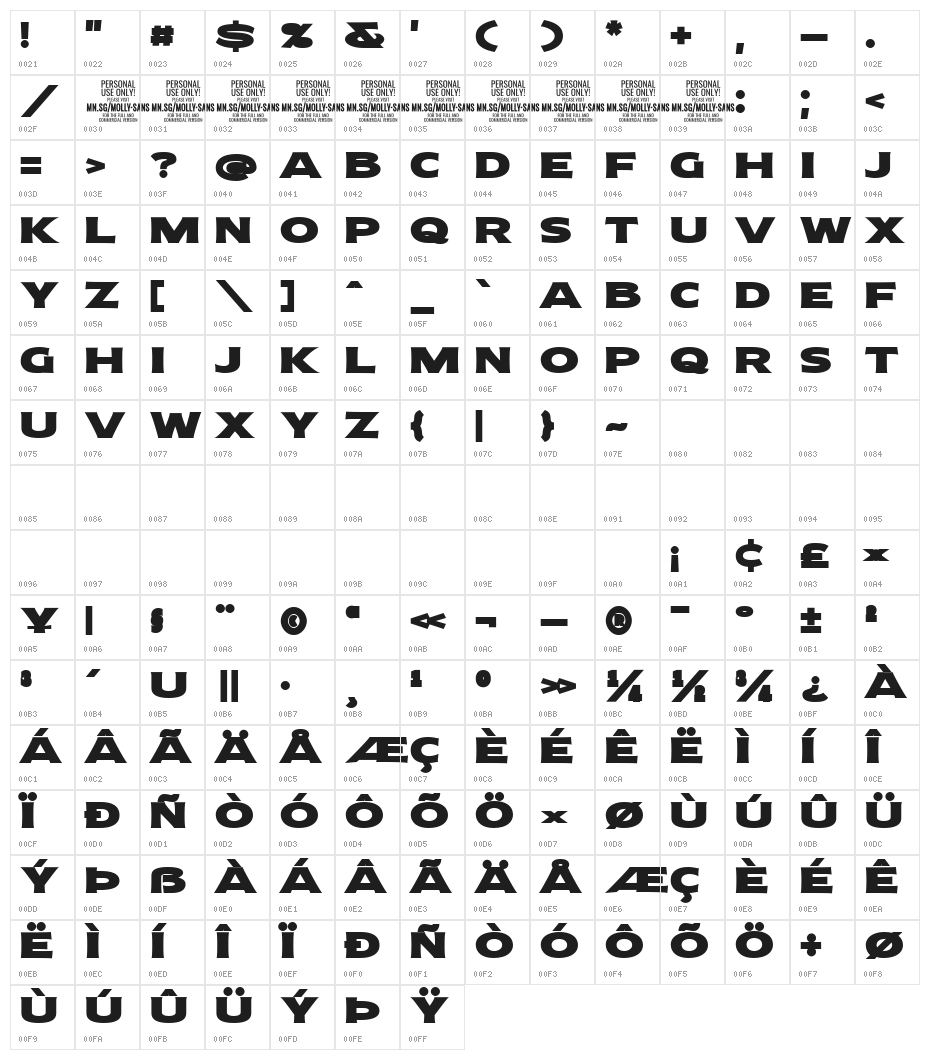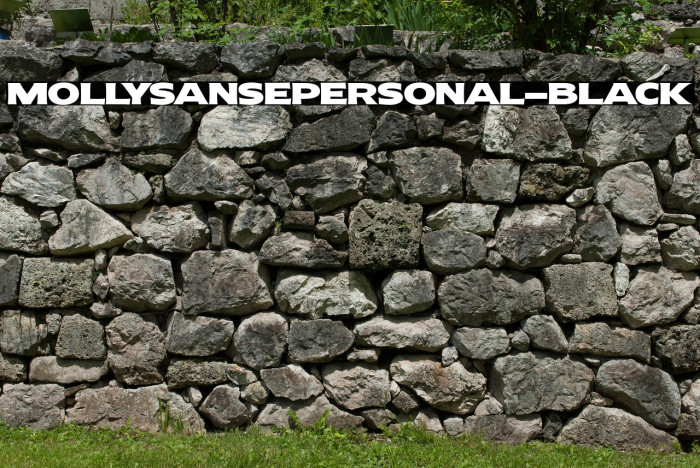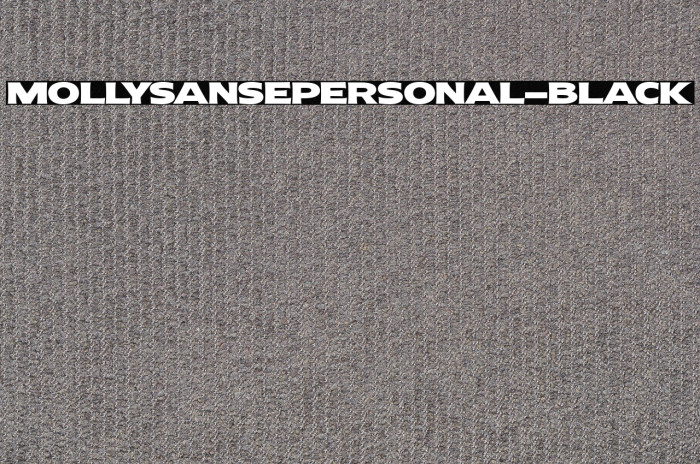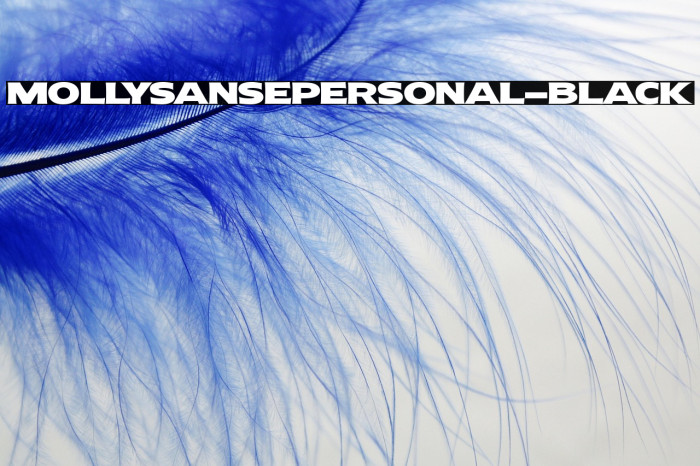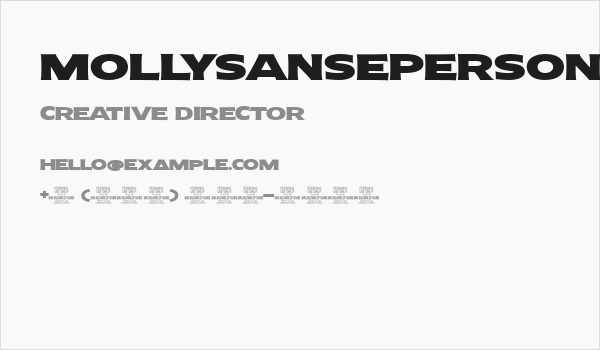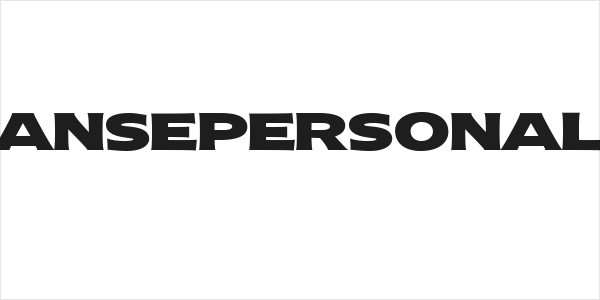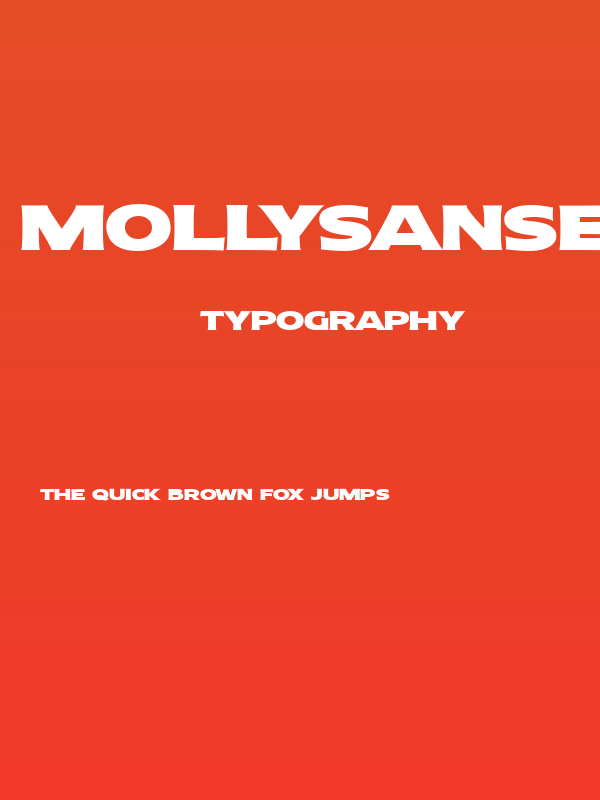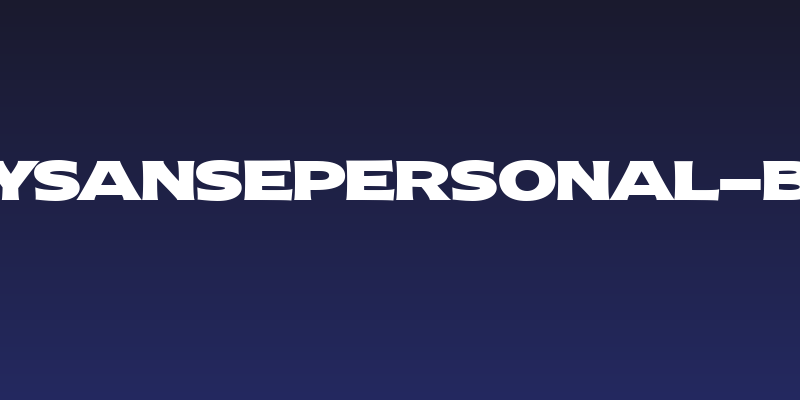
MollySansEPERSONAL-Black Font
MollySansEPERSONAL-Black Description
This font features bold, angular characters with a strong geometric influence, creating a striking and modern appearance. The uppercase letters are particularly wide and commanding, while the lowercase letters maintain a consistent style, offering a cohesive look. The numerals and special characters are equally bold, ensuring readability and impact. The font's design is ideal for making a statement, with its thick strokes and sharp edges that convey strength and confidence. Its overall style is both contemporary and versatile, making it suitable for various design needs.
| Proposed Projects | Ideal for branding, headlines, posters, and any project requiring a bold, impactful typeface. |